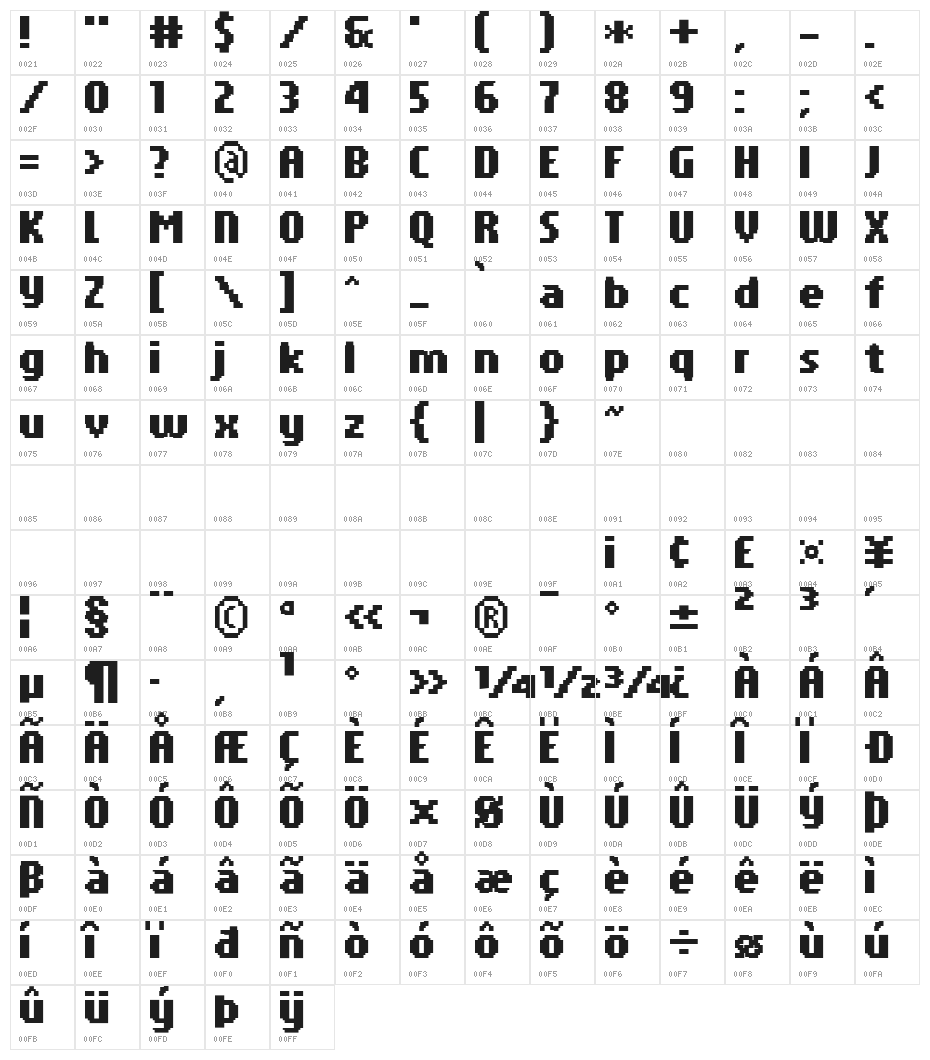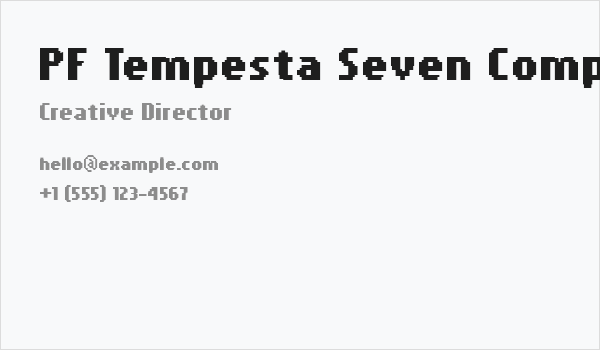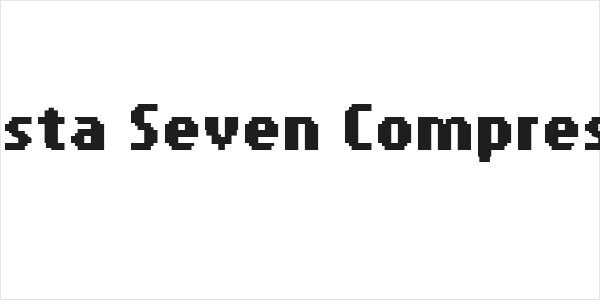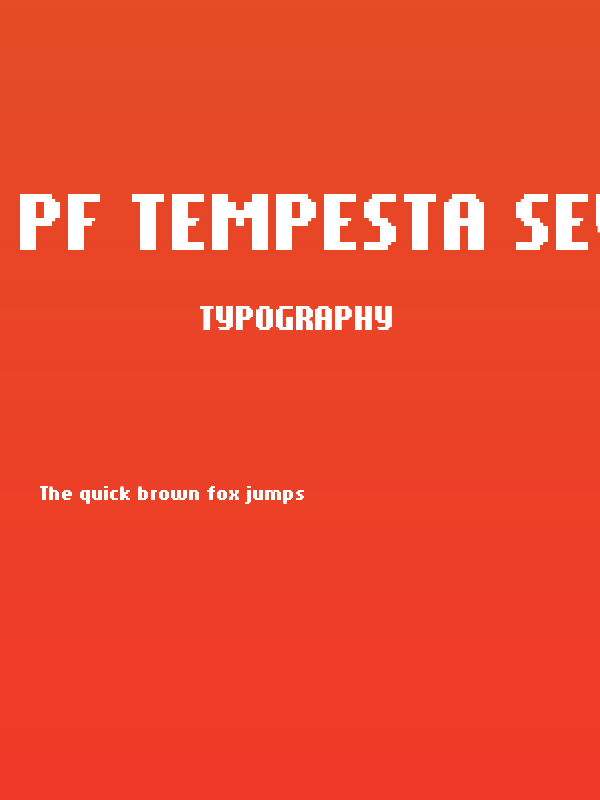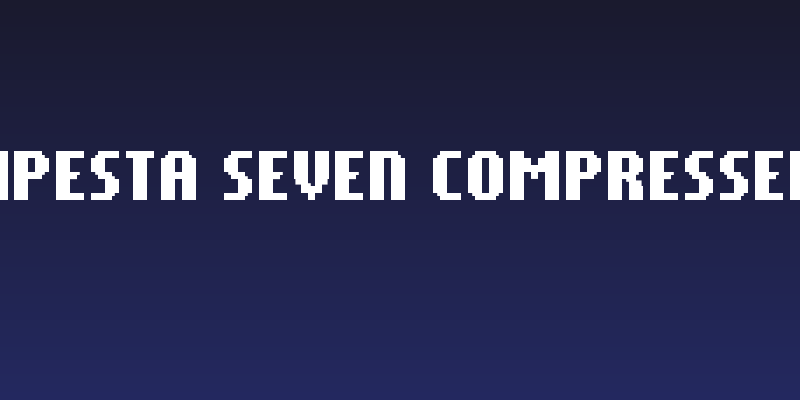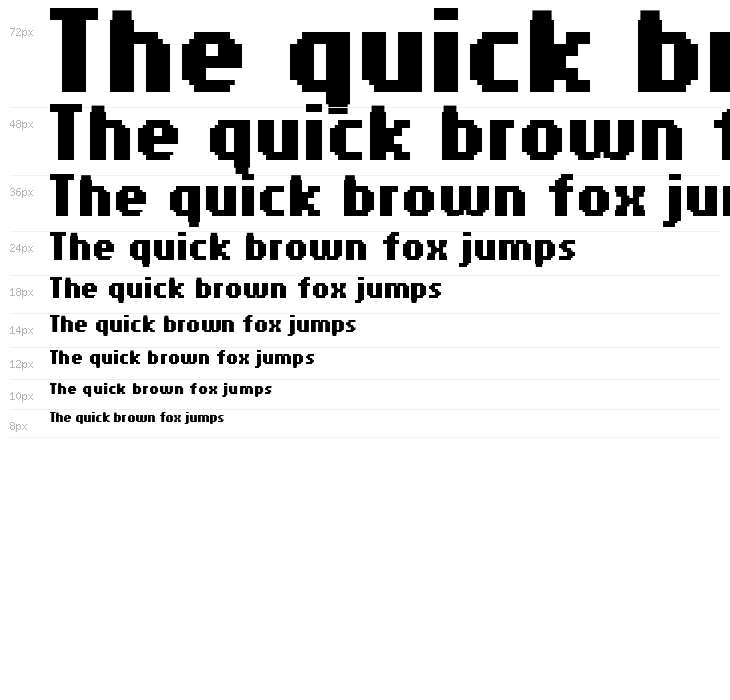
PF Tempesta Seven Compressed Bold Font
PF Tempesta Seven Compressed Bold Description
This font features a bold and compressed style with a strong geometric structure. The characters are blocky and robust, giving a sense of stability and strength. The uppercase and lowercase letters maintain a consistent width, contributing to a uniform appearance. The numerals are equally bold, ensuring they stand out clearly. Special characters are designed to match the overall boldness, making them suitable for impactful statements. The font's compressed nature allows for efficient use of space, making it ideal for headlines or titles where space is limited.
| Proposed Projects | Ideal for headlines, posters, and branding materials where a strong, impactful presence is needed. |